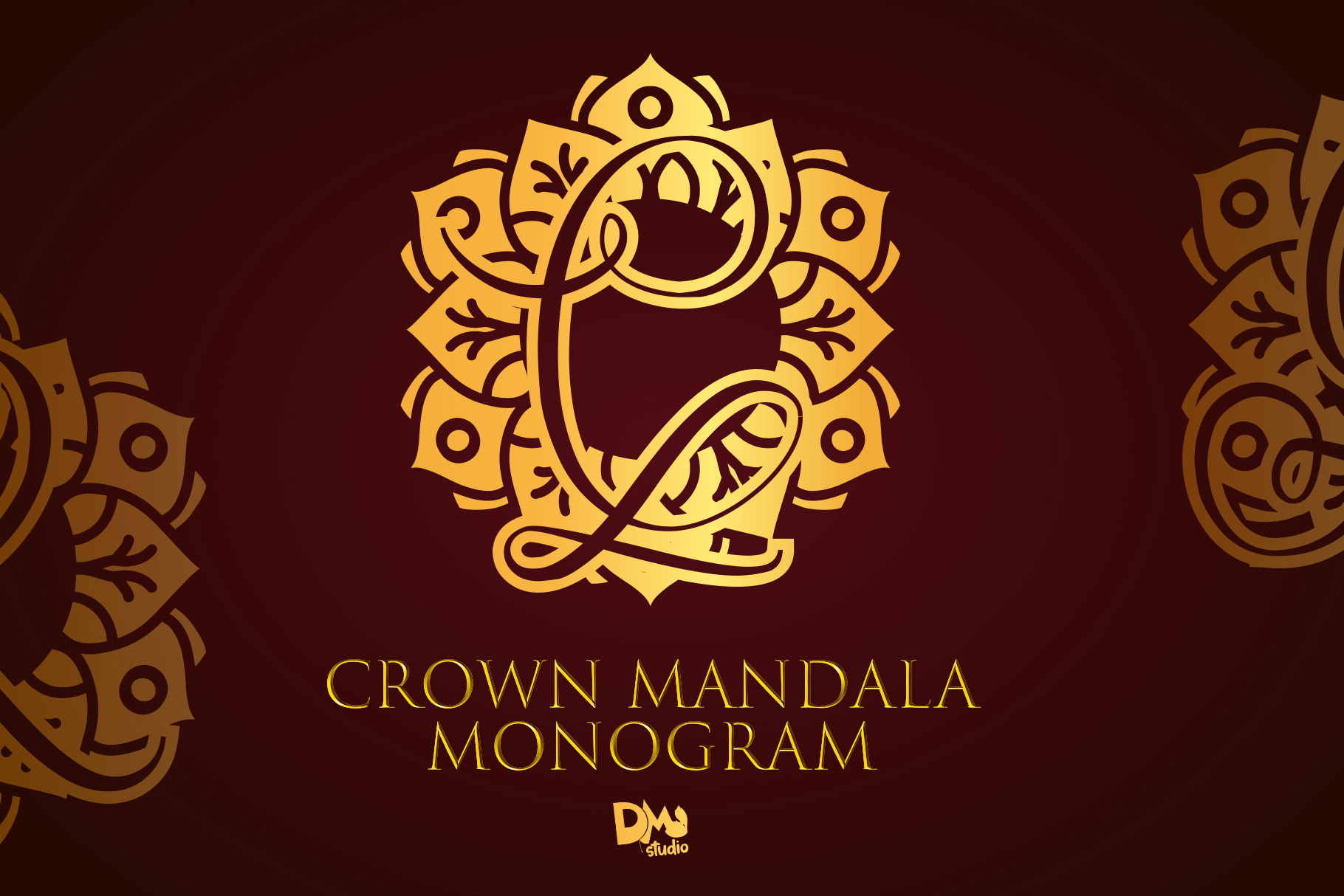
Crown Mandala Monogram
Crown Mandala Monogram – Regal & Ornamental Monogram Font
Crown Mandala Monogram is a luxurious monogram font that combines royal crown elements with intricate mandala patterns. Inspired by classic elegance and ornamental artistry, this font is perfect for wedding invitations, upscale branding, luxury packaging, personalized gifts, and regal-themed designs. Its sophisticated detailing brings a majestic and timeless feel to any project.
• Royal Crown & Mandala Motifs: Each letter is adorned with elegant crown symbols blended with ornate mandala designs.
• Perfect for Luxury & Elegant Projects: Ideal for premium branding, royal wedding stationery, upscale event invites, and boutique packaging.
• Sophisticated & Artistic Style: Balances luxurious curves with detailed patterns for a timeless appearance.